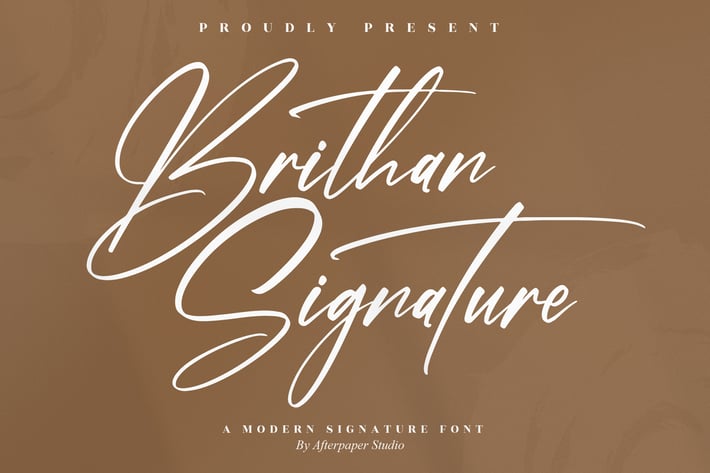
Brithan Modern Signature Font
Brithan Modern Signature is a sleek, flowing signature script designed to bring modern elegance to your work. Long strokes, smooth contrast, and natural pen pressure create a confident handwritten look that shines on logos, brand marks, wedding suites, packaging, and social content. Clean spacing and polished curves keep it legible at small sizes while the stylish swashes add drama in headlines.
+ Uppercase & lowercase with natural baseline flow
+ Numerals & punctuation
+ Useful ligatures & stylistic alternates (where supported)
+ Refined kerning and smooth spacing
+ Branding & logos
+ Business cards & stationery
+ Wedding invitations & save-the-dates
+ Social media posts & quotes
+ Packaging & labels
+ Website headers & watermarks
+ Posters & flyers
+ Blog graphics & thumbnails
Sign your work with effortless modern elegance.